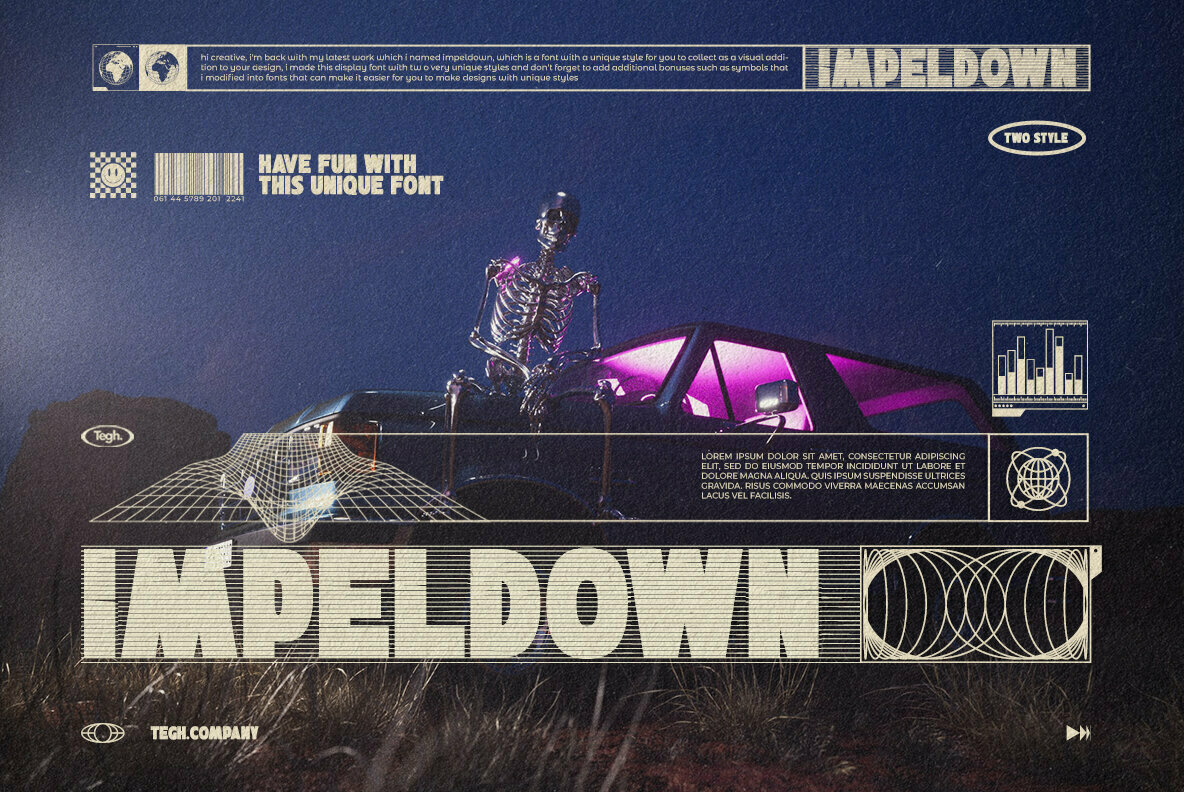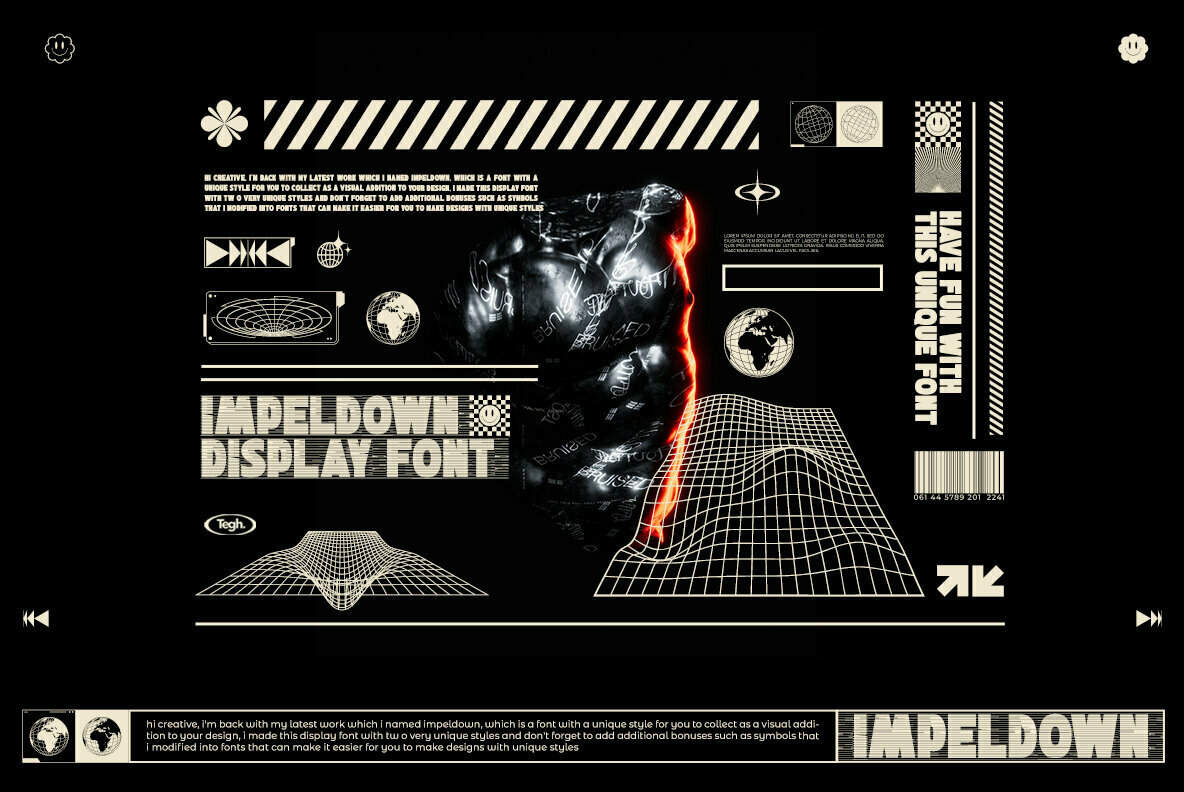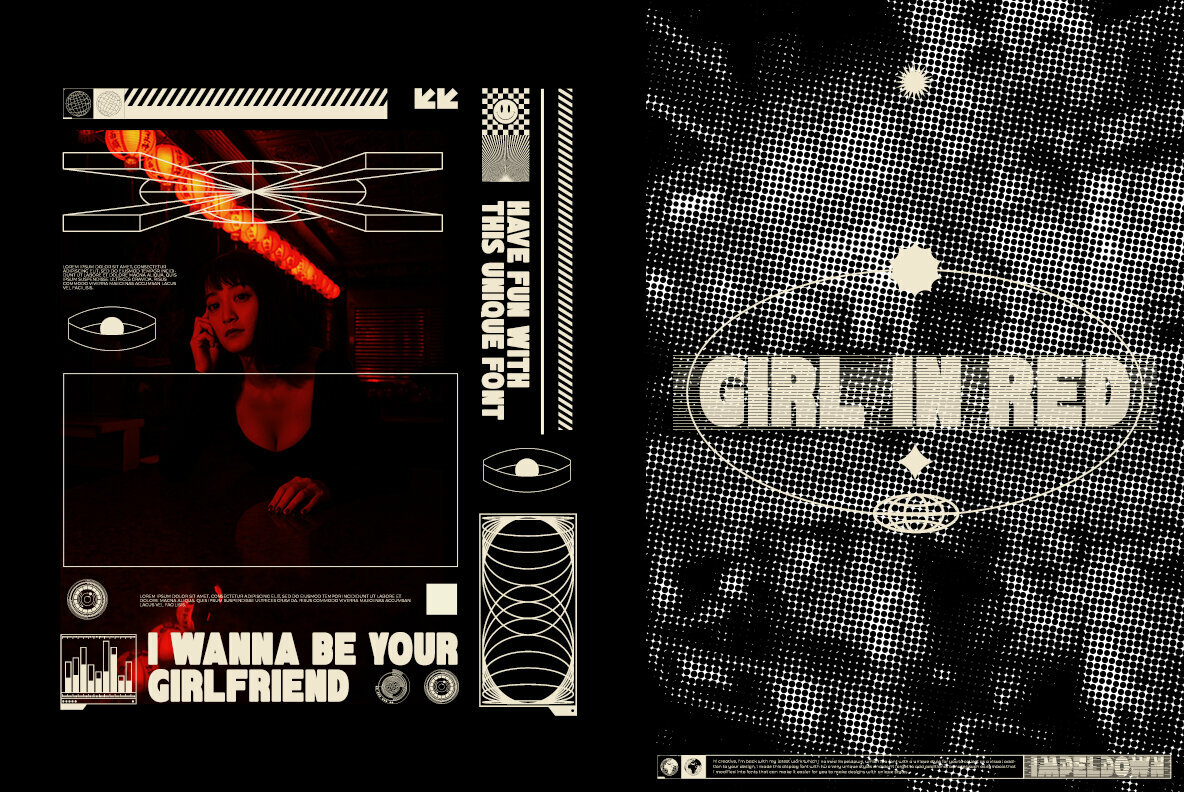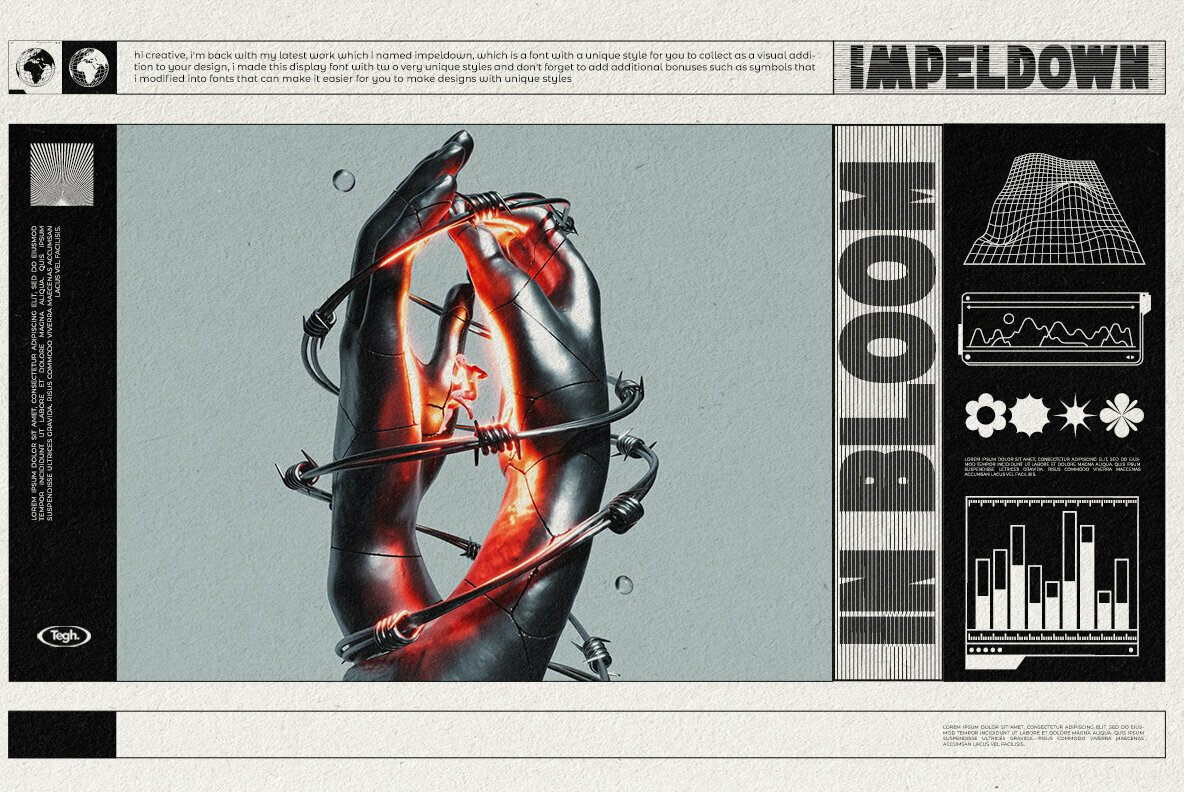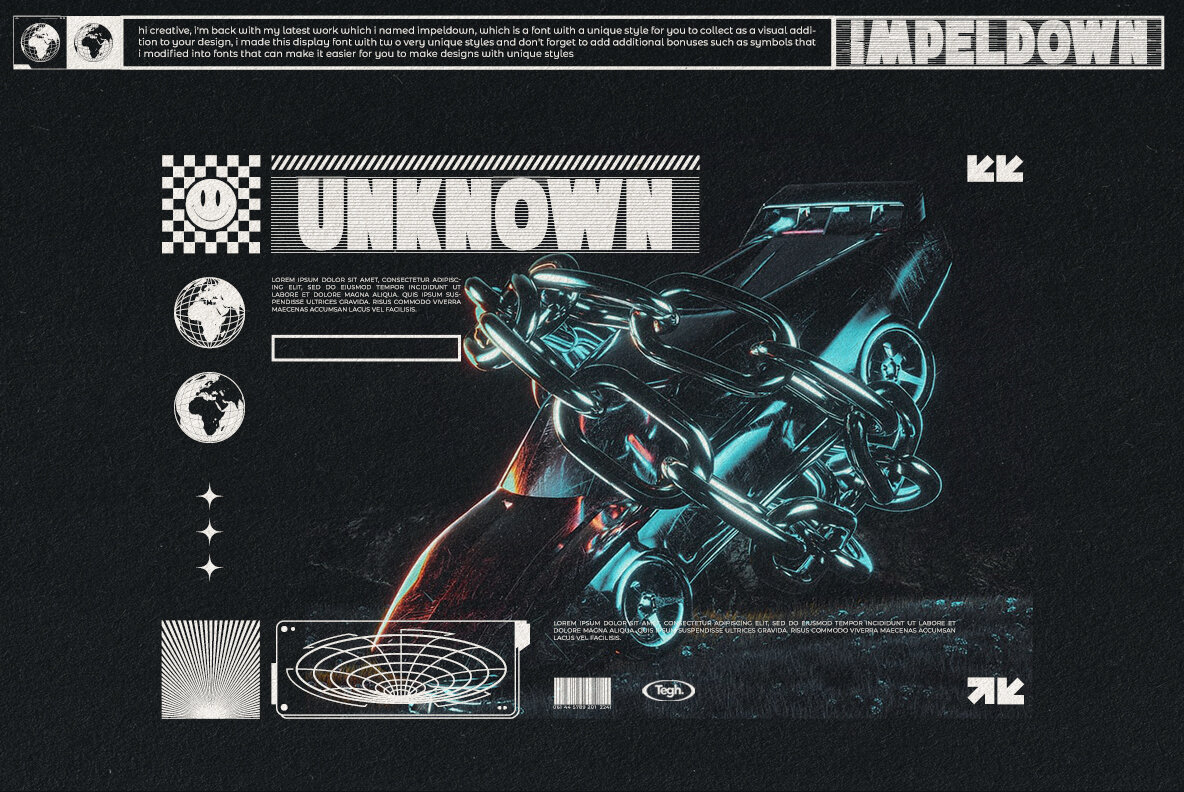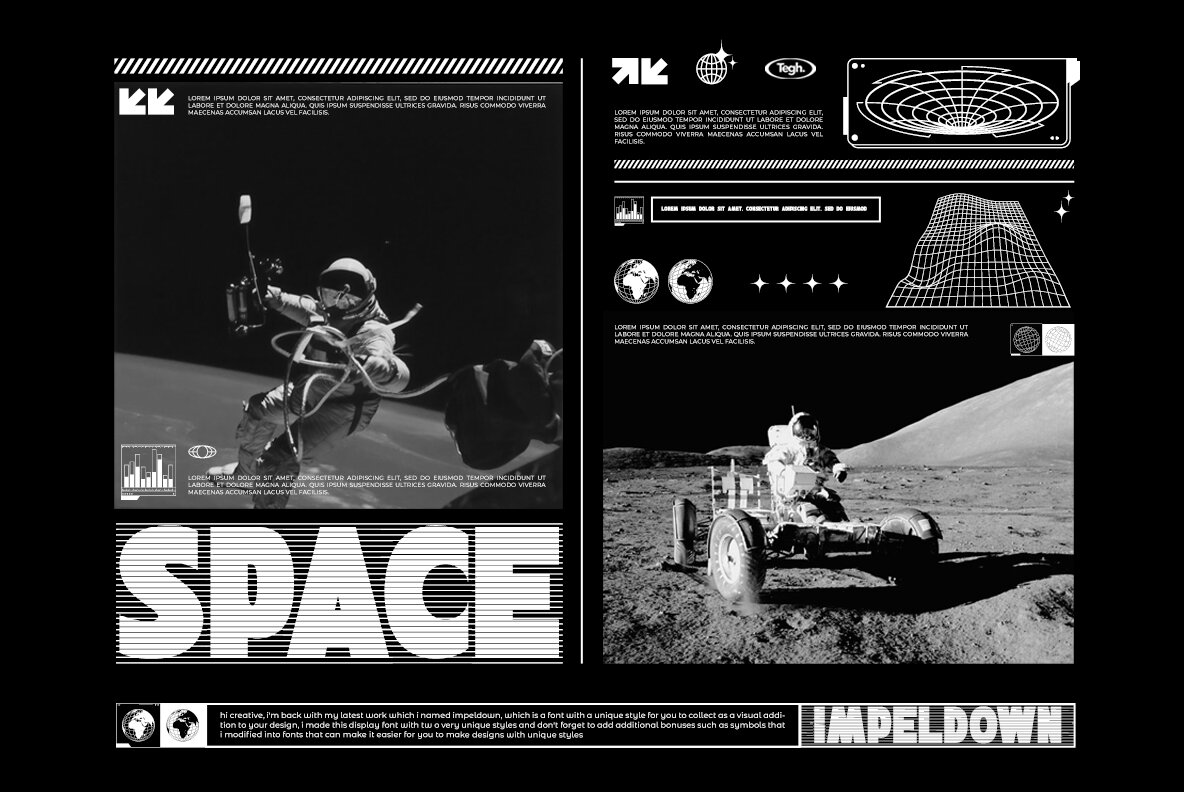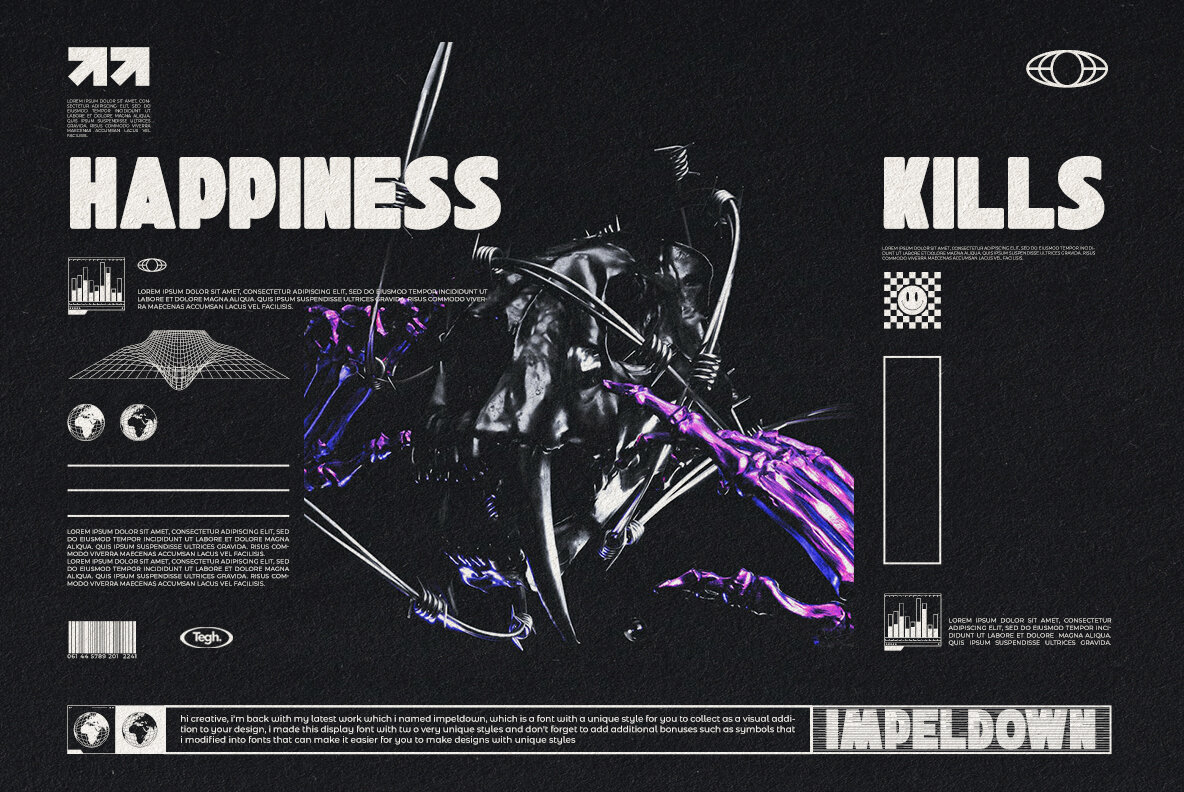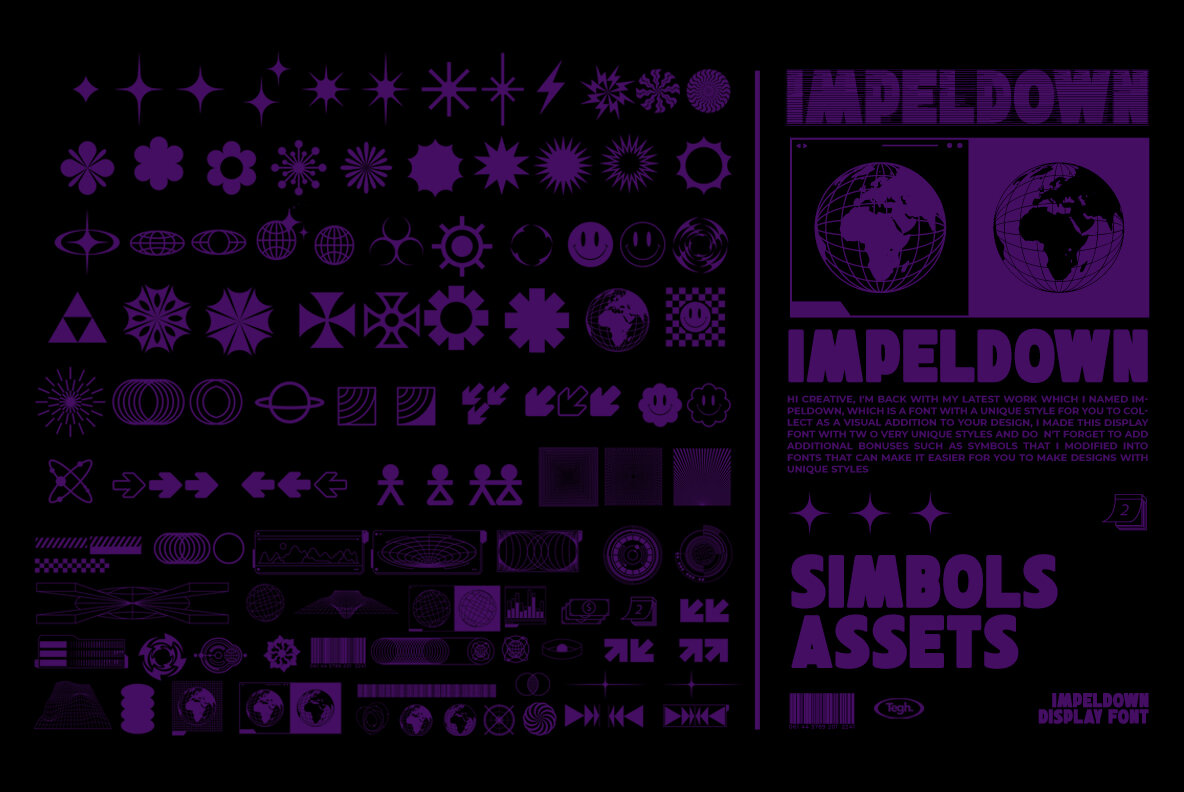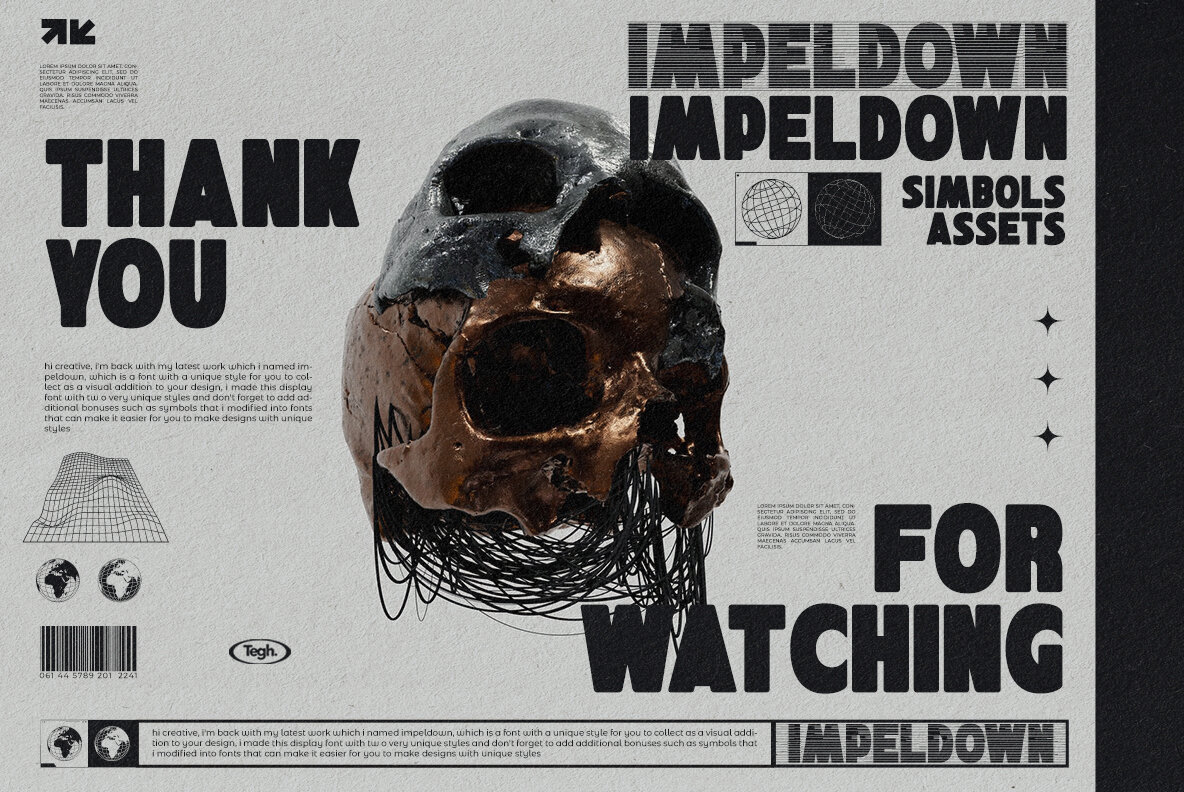
Impeldown is a beautiful display font with two unique styles. It's perfect for adding some flair and creativity to your designs, but don't forget that you can also get creative by using the symbols that were modified into fonts so it will be easier than ever before!
Tegh Co is a bold and experimental type foundry, pushing the boundaries of typography with high-impact display fonts. Their font collection blends retro influences, futuristic aesthetics, and unconventional letterforms, creating typefaces that demand attention. From playful and bubbly script fonts to heavy, in...